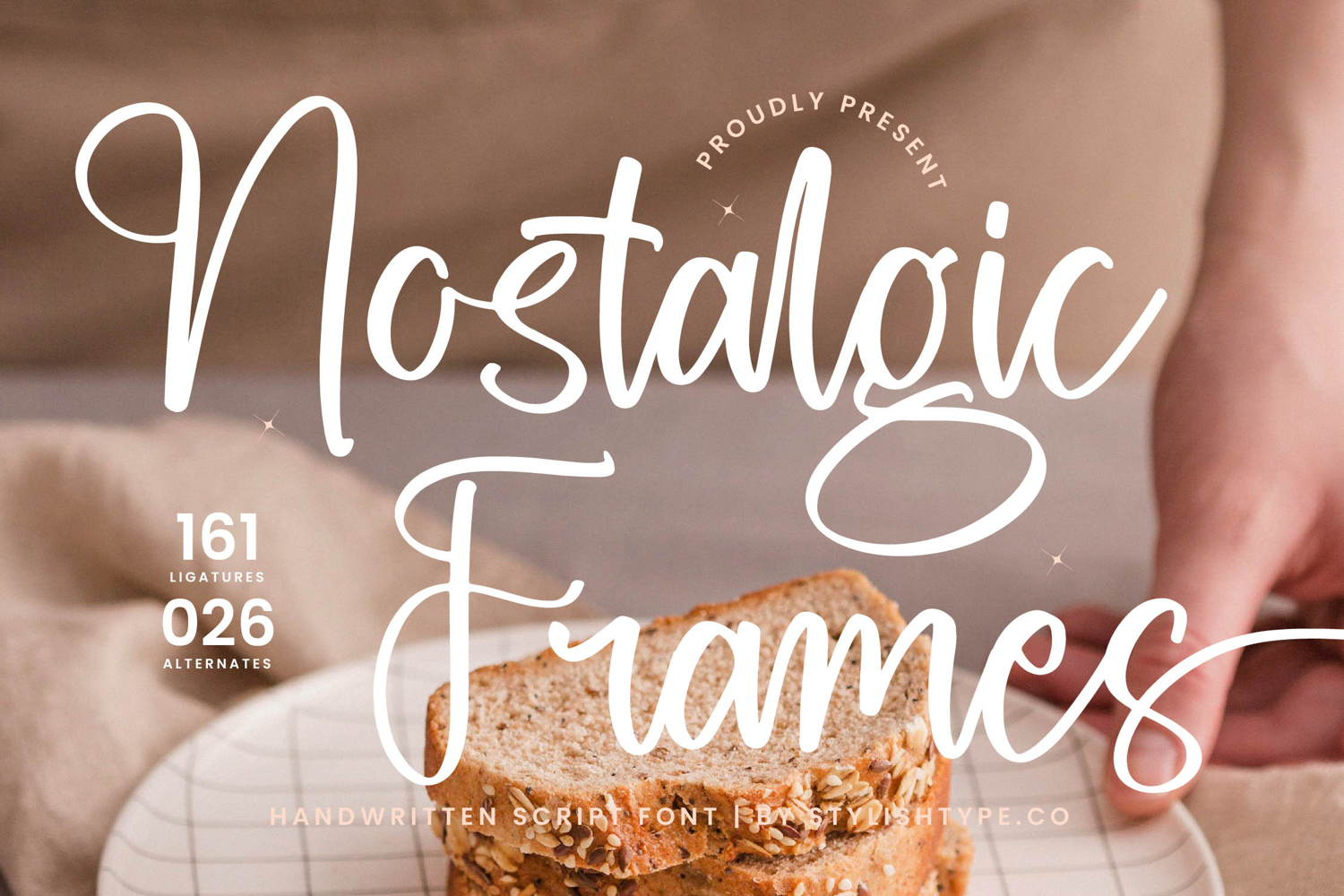
Nostalgic Frames - Handwritten Script Font
modern serif display feel within a fluid script, this font delivers luxury typography for projects that require a delicate yet commanding presence. It provides a high-contrast serif sensibility through its thick and thin strokes, acting as the perfect editorial font to maximize your branding impact.